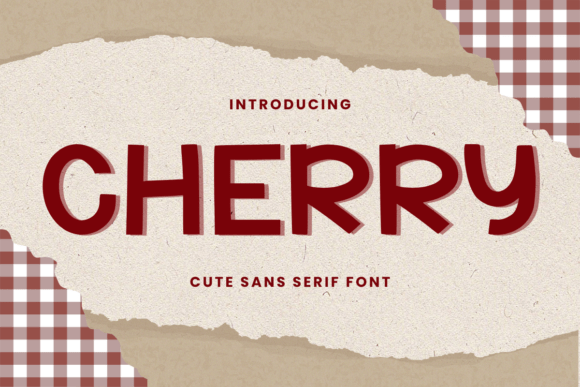
Have you ever stared at a blank canvas, trying to come up with the perfect phrase to inspire your next design project? You know, that moment when everything feels stuck, and you just want to grab a cup of coffee and brainstorm for hours? I’m sure we’ve all been there.
That’s where Cherry Font comes in – a delightful, casual font that’s perfect for adding a touch of whimsy to your designs. With its cute style and playful feel, Cherry Font is great for quotes, stickers, mugs, tumblers, sublimation, t-shirts, and more! Whether you’re a seasoned designer or just starting out, this versatile font is sure to bring your ideas to life.
As a valuable addition to any designer’s toolkit, Cherry Font offers endless possibilities for creativity and self-expression. In this article, we’ll dive deeper into the world of Cherry Font and explore its many uses, making it the perfect companion for your next design project.
Key Features of Cherry Font
- Unique Characteristics: Cherry Font features a unique blend of modern and vintage elements, with a distinctive rounded design and elegant flair.
Designer Review: Cherry Font
Overall, I think the Cherry Font is a charming and versatile font that can add a touch of elegance to any design project. ✨
Here are some of the things that I think work well with this font:
- Unique style: The Cherry Font has a distinctive, hand-painted feel that can add a personal touch to designs.
- High legibility: Despite its unique style, the font remains highly legible, making it easy to read even at smaller sizes.
- Customization options: The font comes in a range of weights and styles, allowing designers to customize their designs to suit their needs.
- Not suitable for all projects: The Cherry Font’s unique style may not be the best fit for all design projects, particularly those that require a more formal or conservative tone.
- May require adjustments for smaller text: While the font is highly legible, it may require some adjustments for smaller text sizes to maintain its readability.
- Not as extensive a character set as some other fonts: The Cherry Font’s character set is relatively limited compared to some other fonts, which may make it less suitable for certain types of projects.
Overall, I think the Cherry Font is a great addition to any designer’s toolkit, but it’s essential to use it judiciously and consider its limitations when choosing it for a project.
Rating: 4/5 stars
The Cherry Font is ideal for creating eye-catching titles, headings, and captions for:
– Food and beverage branding
– Fashion and beauty marketing
– Travel and hospitality advertising
Alternatives to Cherry Font
Cherry Font is a beautiful and elegant script font, but sometimes designers may be looking for alternatives to achieve a similar look or to cater to different design needs. Here are a few alternatives:
Pacifico is a beautiful, elegant, and highly legible script font. It’s perfect for creating a warm and inviting atmosphere in designs, such as wedding invitations, restaurant menus, or branding materials. Compared to Cherry Font, Pacifico has a more relaxed and casual feel, making it ideal for everyday use.